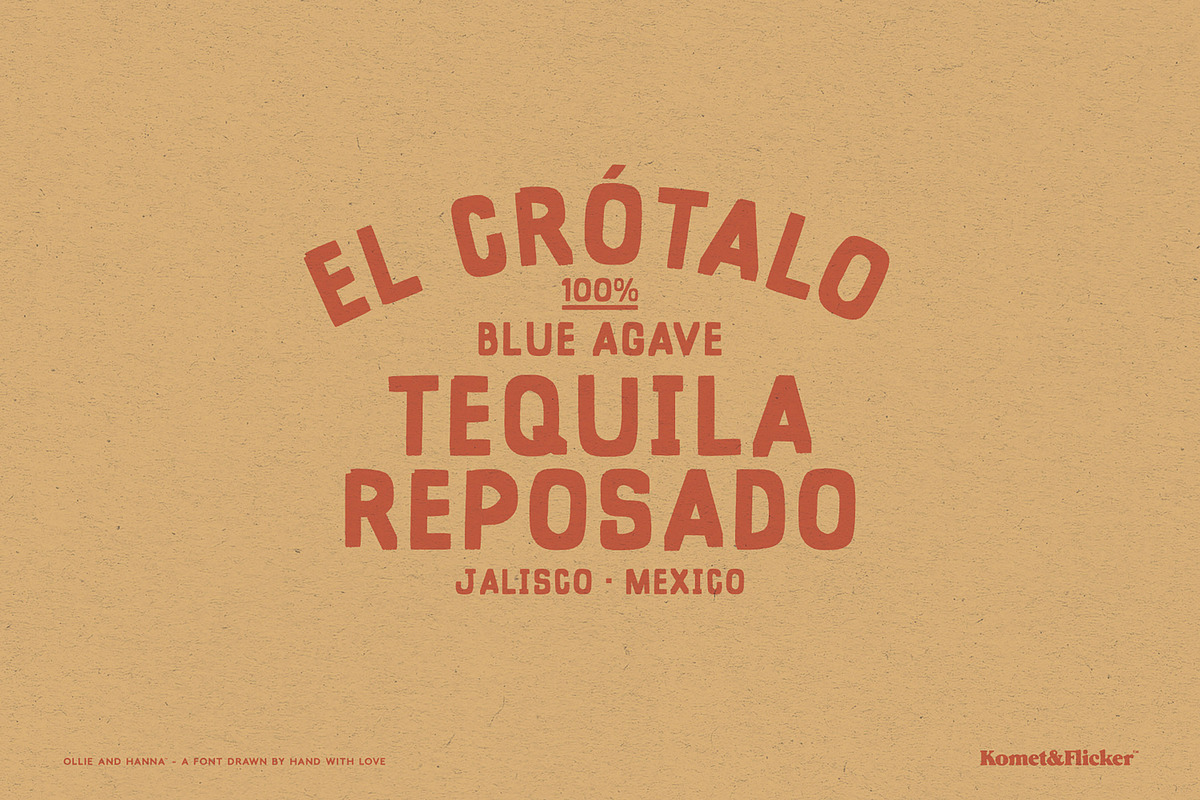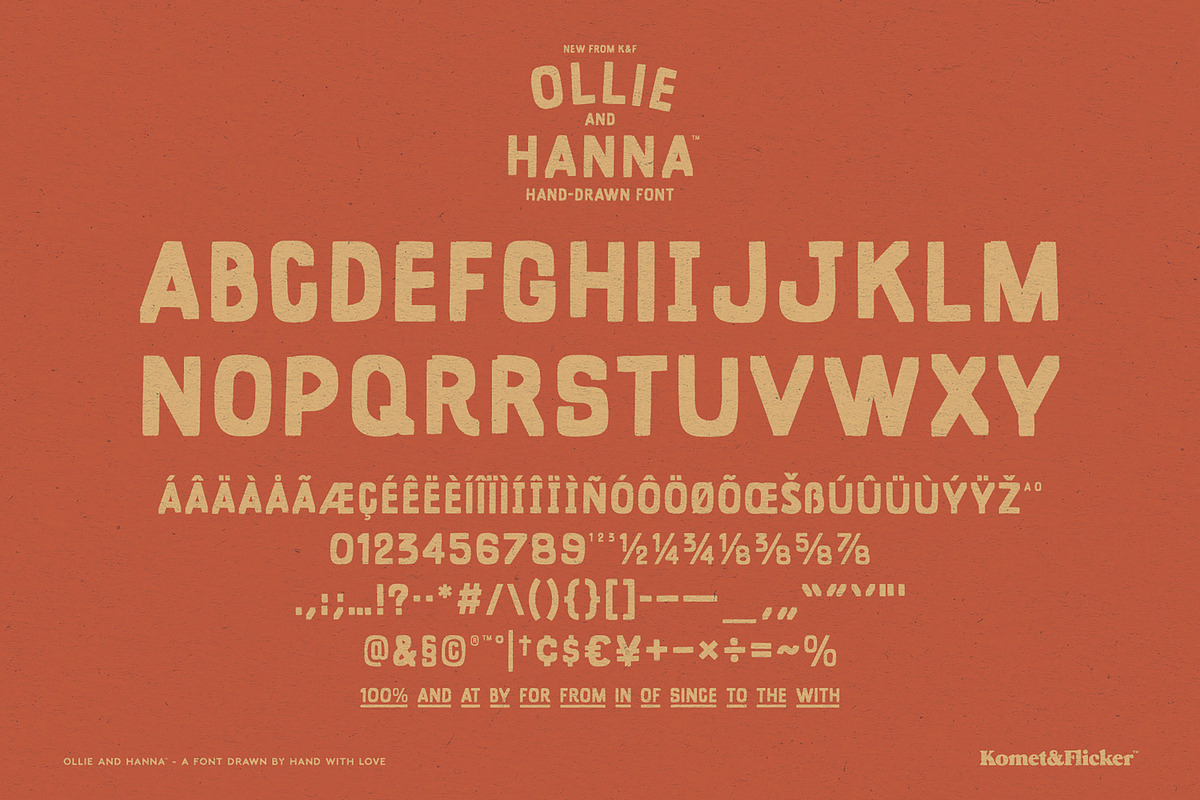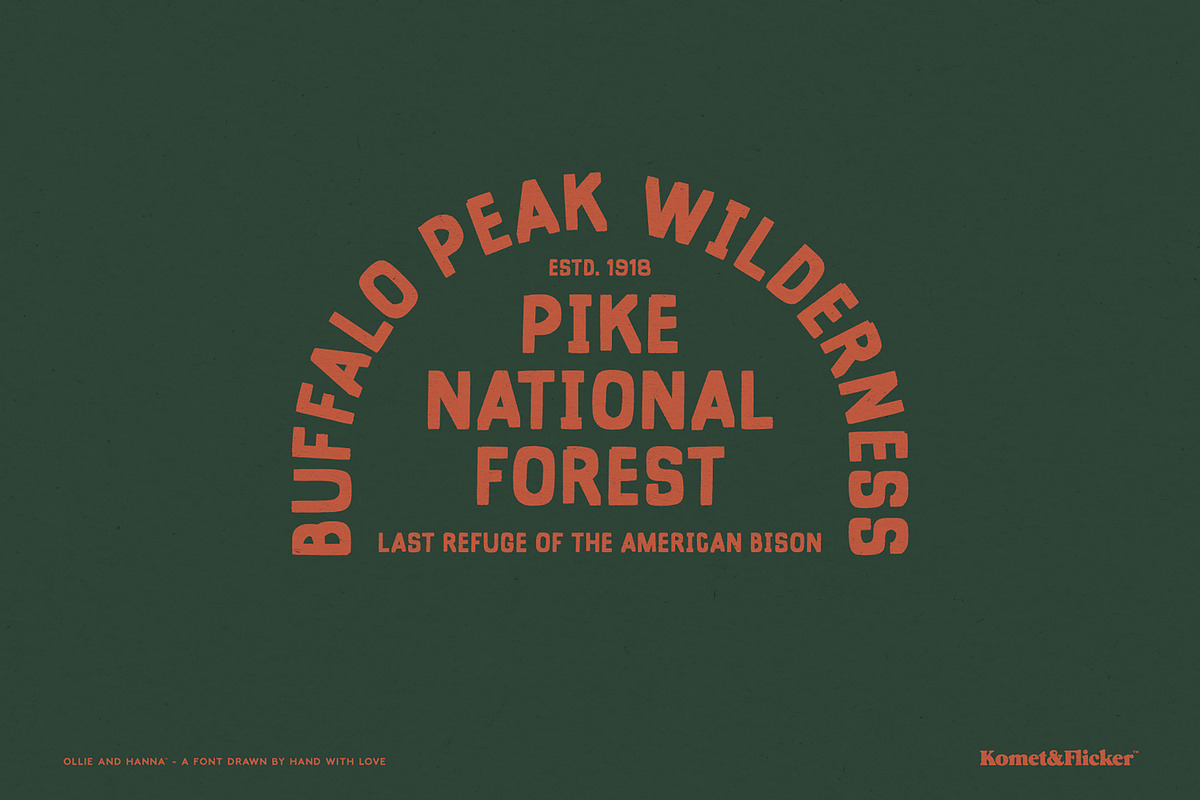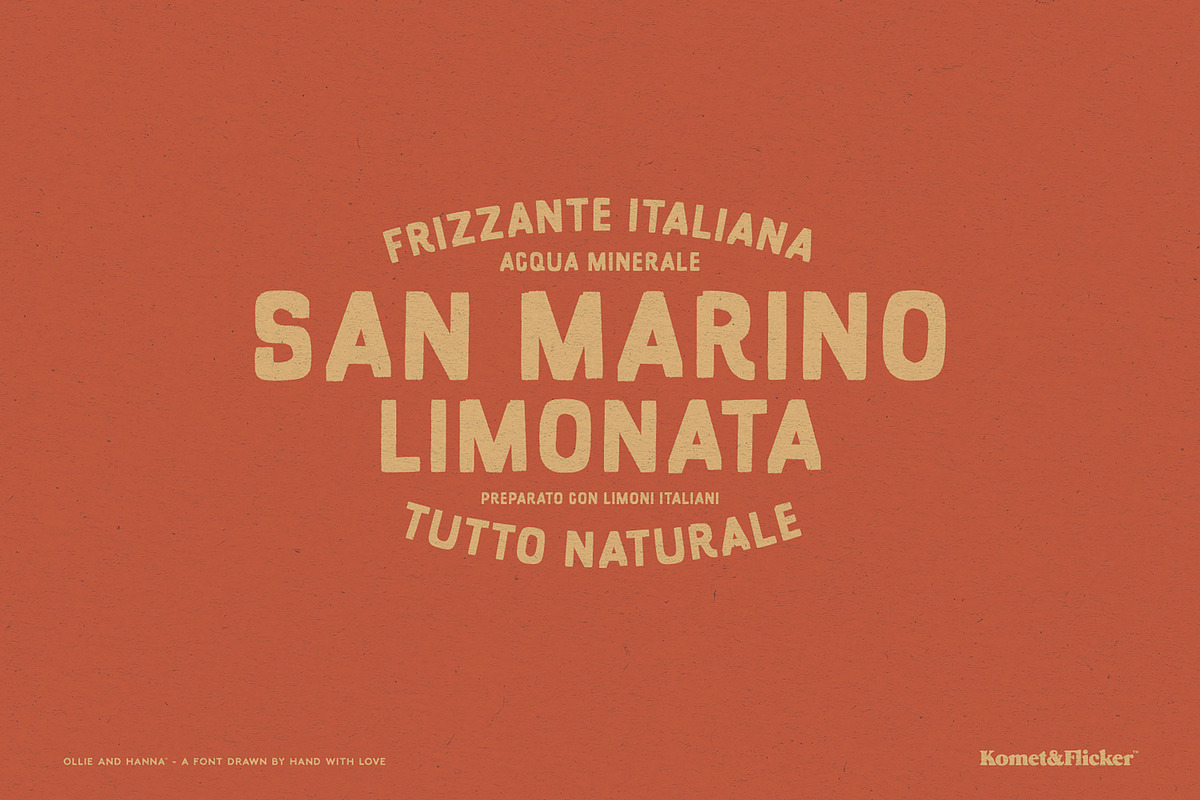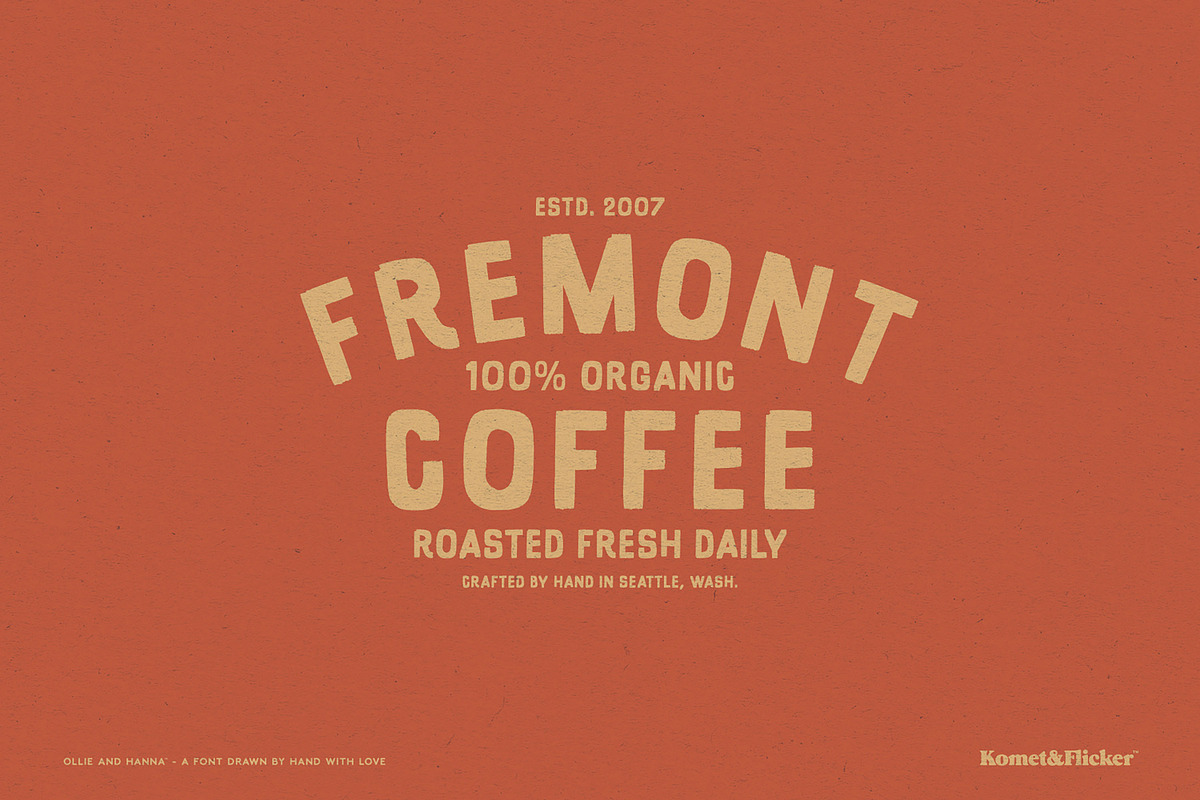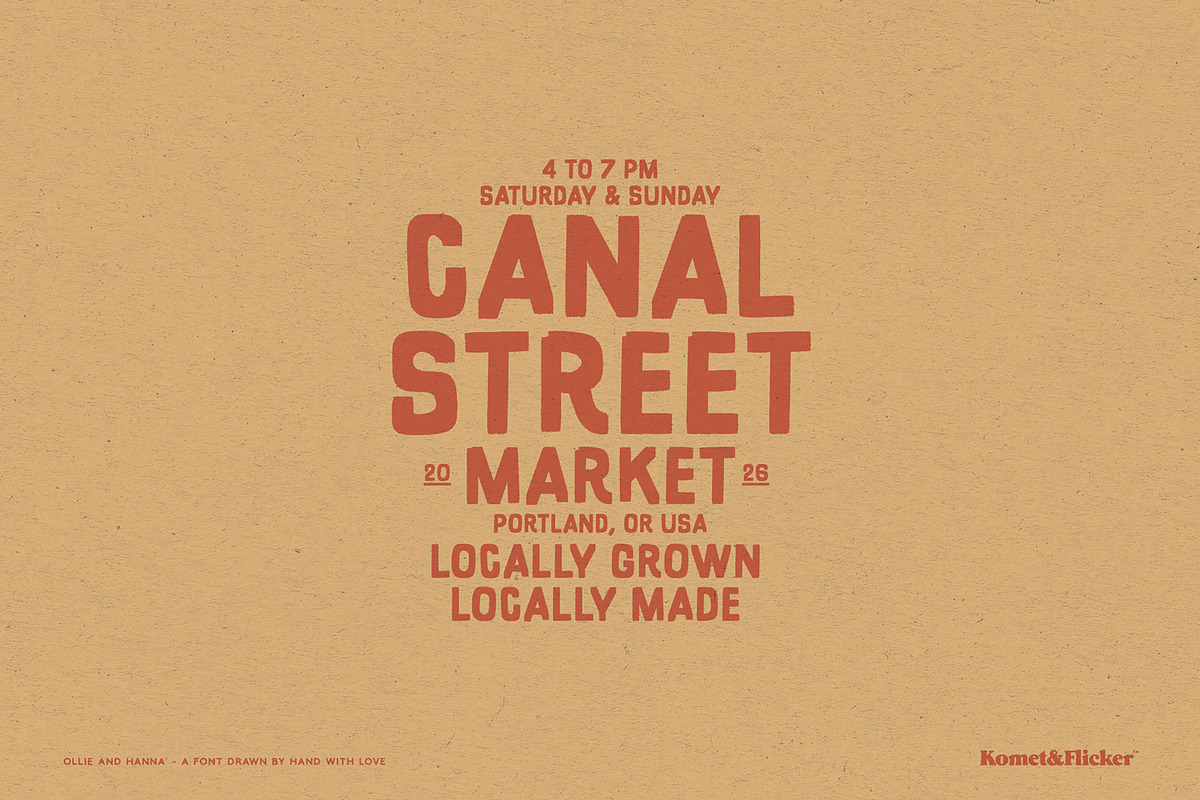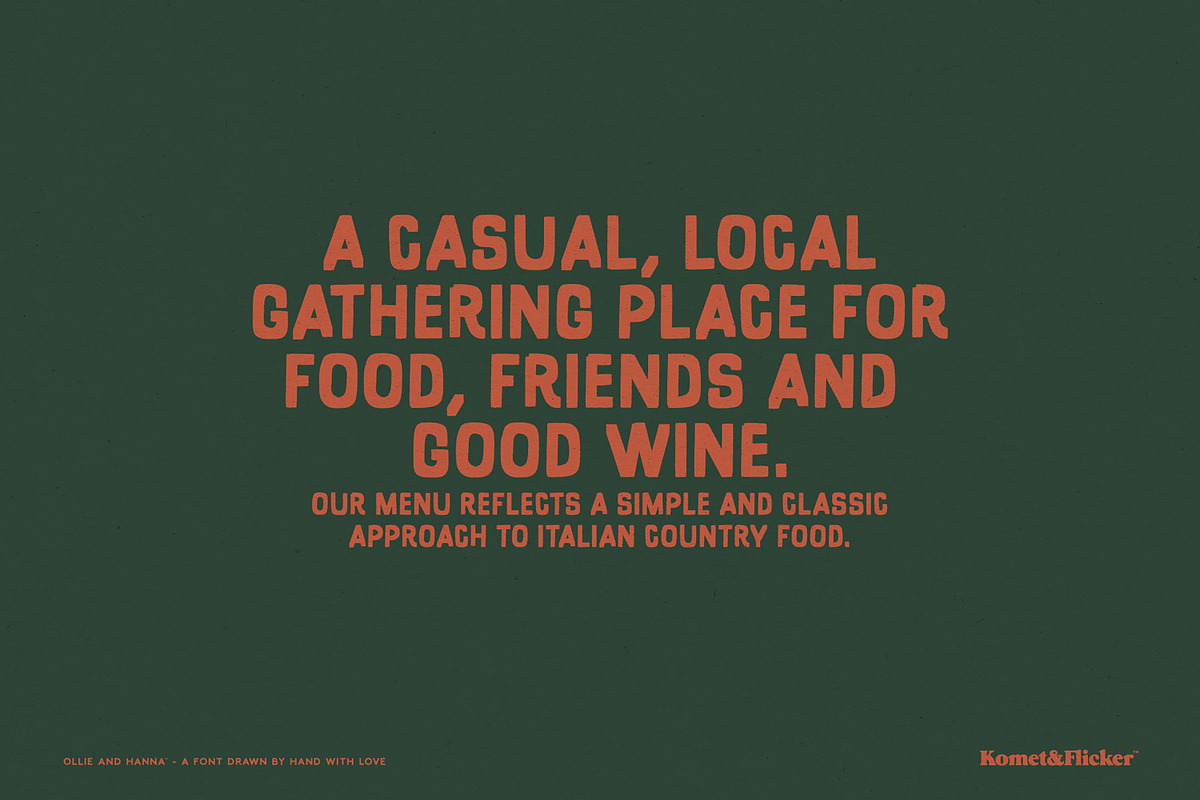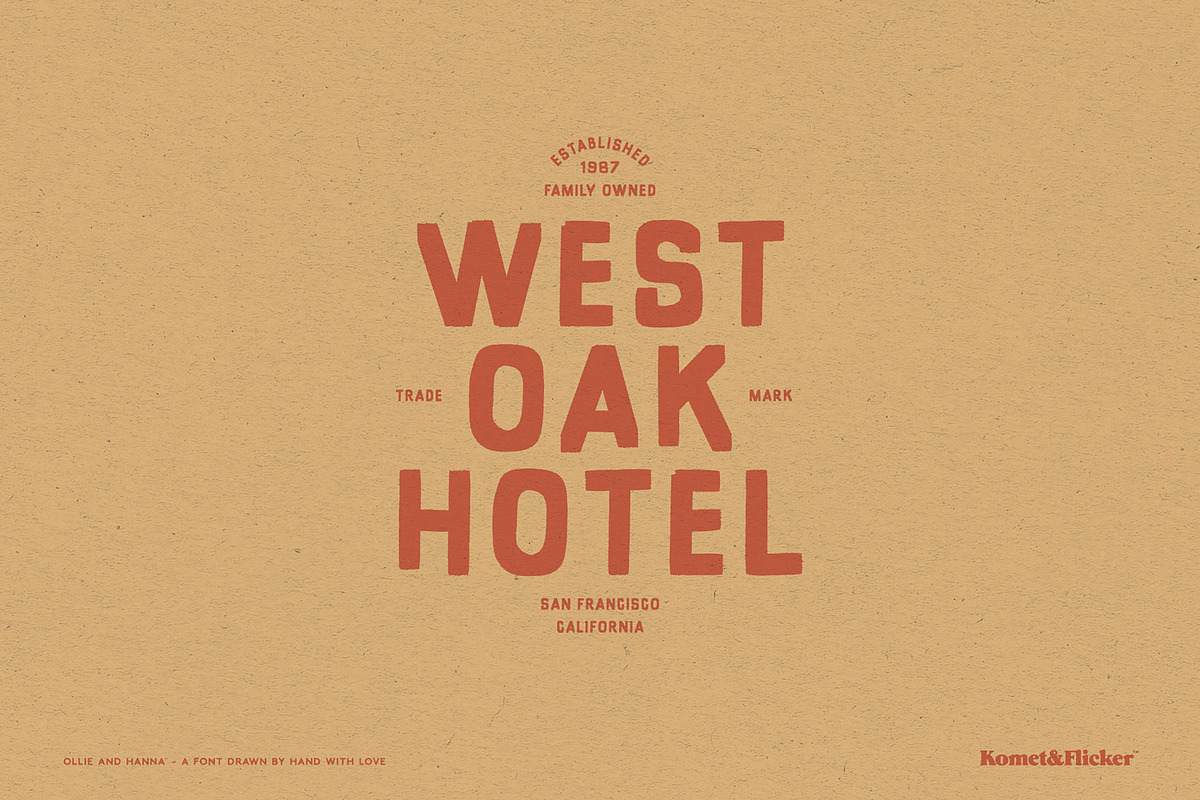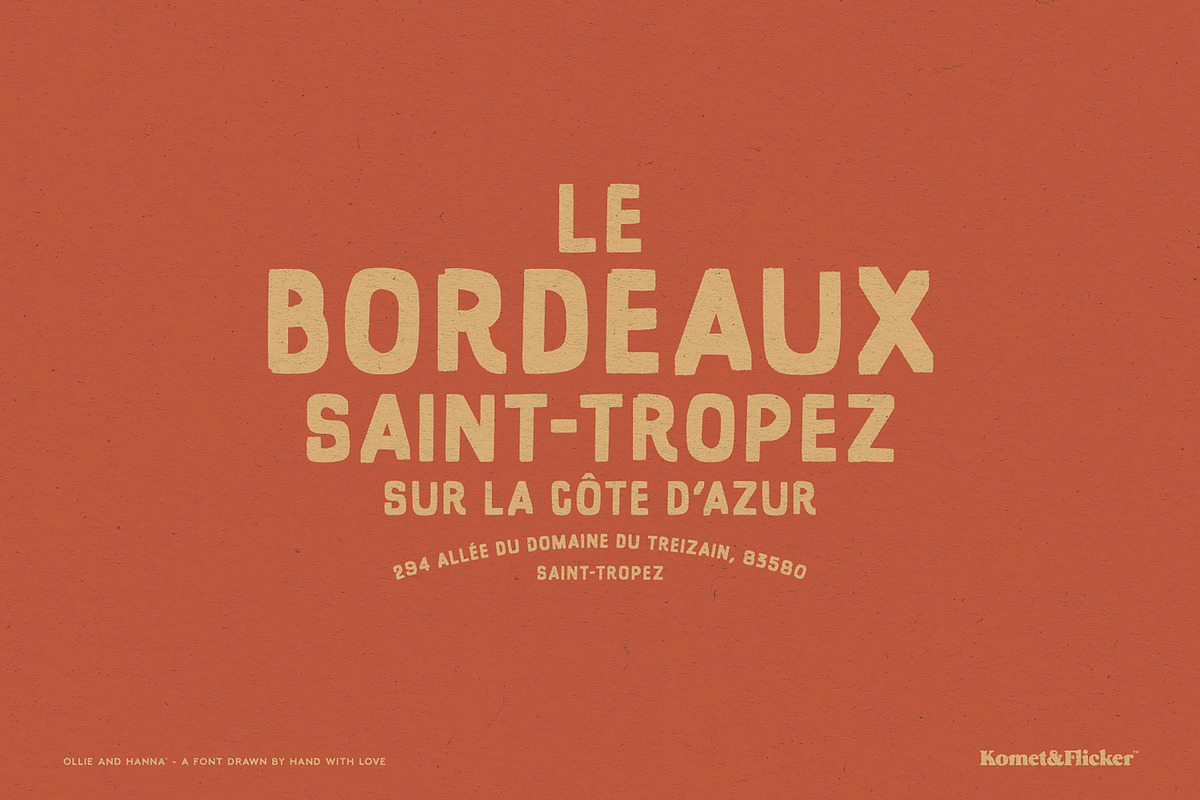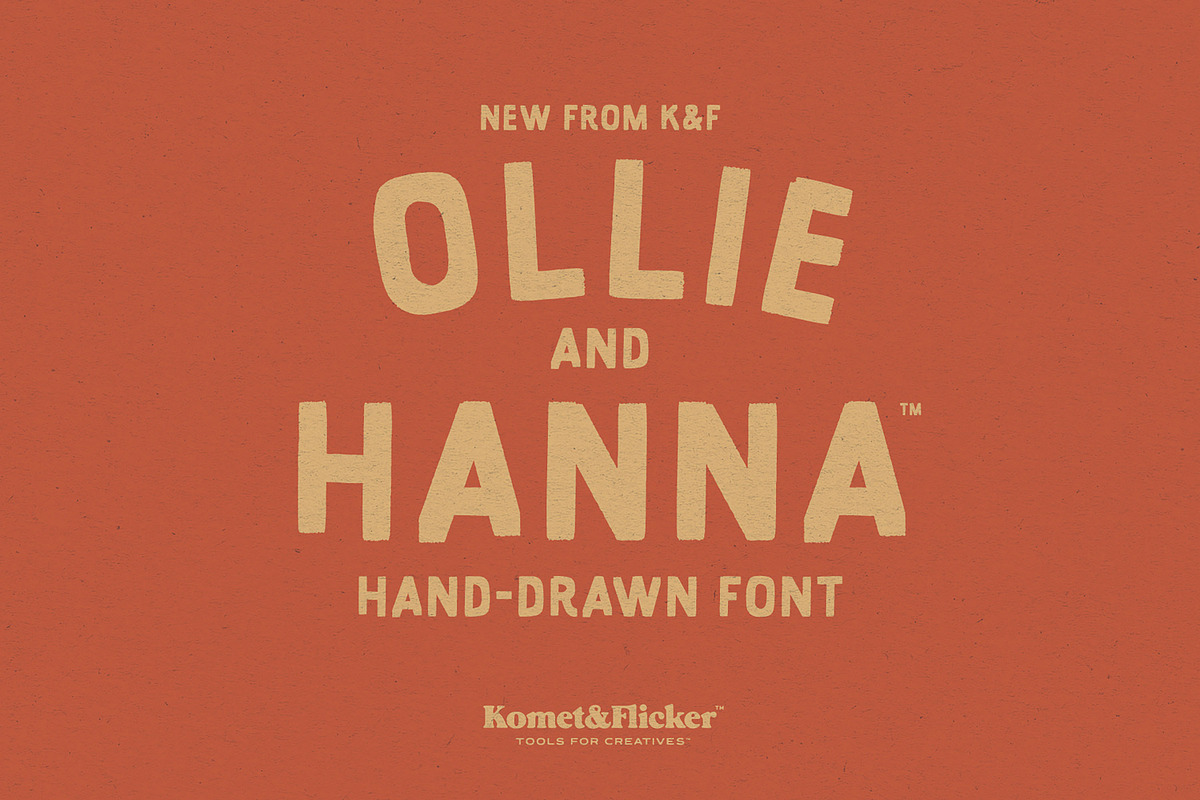
Ollie and Hanna
Ollie and Hanna is a hand-lettered font bursting with bold energy and heartfelt character. Drawn by hand with a rough marker brush, every stroke carries loose imperfections that makes it feel genuinely human; unpolished, expressive, and full of life.
With its rough, authentic vibe, Ollie and Hanna is the perfect choice for projects that need warmth and personality over precision. Whatever you're designing, this font brings an unmistakable handmade soul to everything it touches.
Included with this typeface is a set of 12 custom connecting word glyphs (like "and," "the," "of,”) that are perfect for weaving elegant transitions between words and adding a handcrafted feel to headlines, posters, and branding.
THIS FONT INCLUDES
Full A-Z basic latin uppercase characters
Select European specific characters
Numbers, punctuation, and select symbols
Pre-made common fractions
Set of 12 custom connecting word glyphs